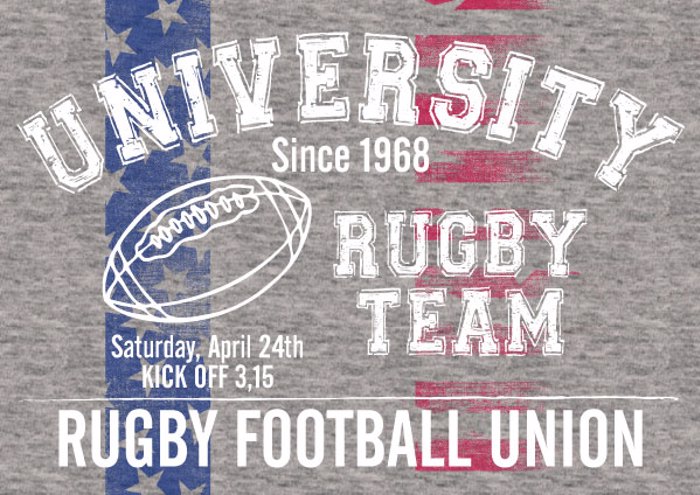
UNIVERSAL-COLLEGE Font
"Universal College" is one of the classic COLLEGE style font sketched with a nice handmade effect. Vintage look guaranteed! Free version available on fontscafe.com!
im a huge sports girl and use this all the tim !!!!!!!
this doesn't have the whole alphabet. right? How can I get all the characters???
Awesome!!
super
great font but it looks like they forget to design a "T"
cool!
this is amazing. i'll download it when i have the chance. best sports font on here(: